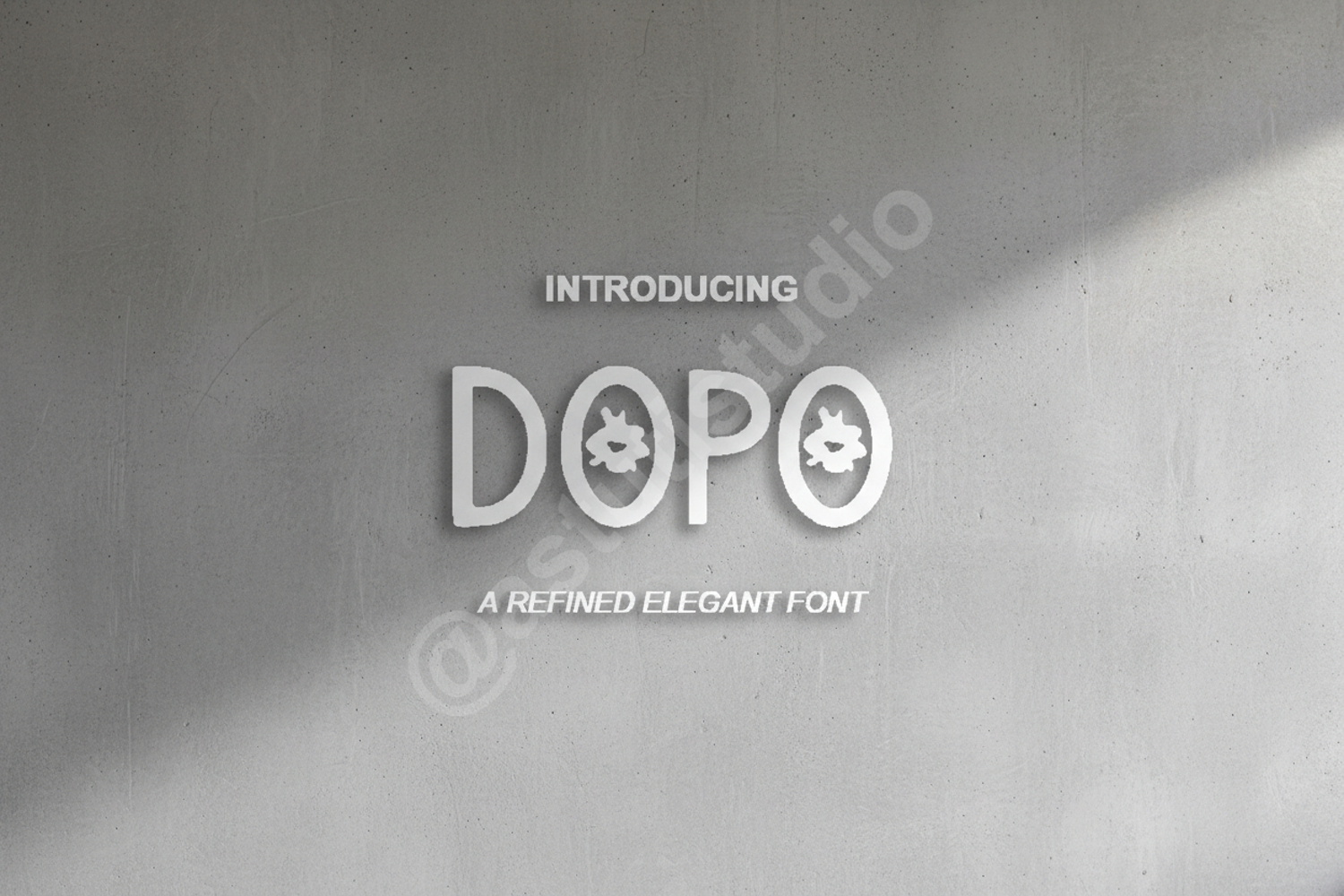
Dopo - Elegant Modern Minimalist Sans Serif
Dopo
Dopo is a premium sans serif typeface that embodies the essence of modern minimalism. Designed with clean lines and balanced proportions, it offers a sophisticated aesthetic that commands attention while maintaining effortless readability. Whether you are crafting a high-end brand identity or a sleek digital interface, Dopo provides the versatility and professional polish your projects deserve.